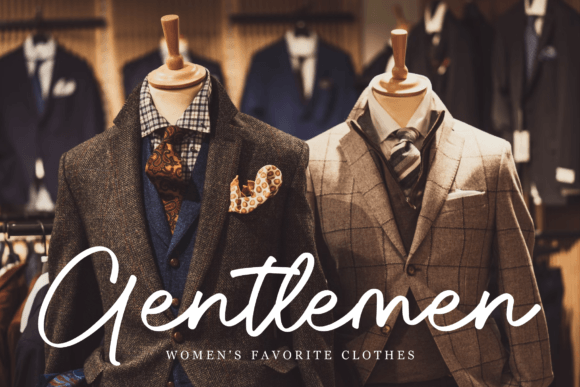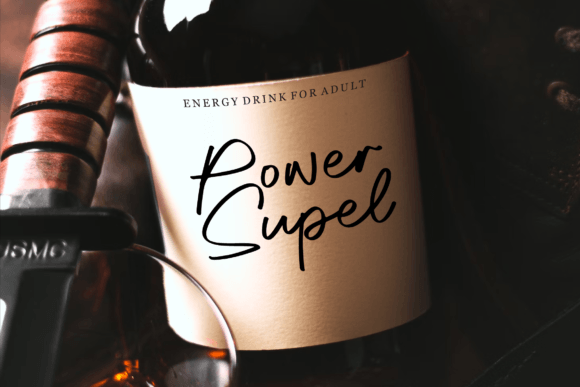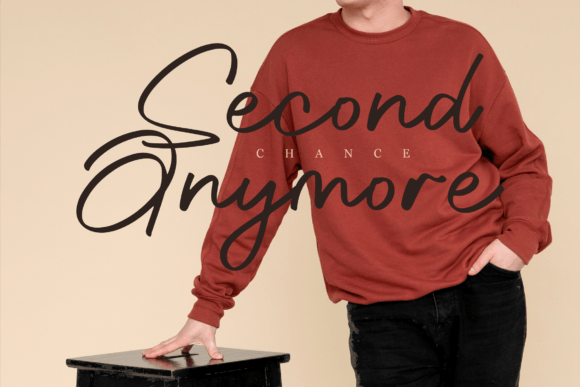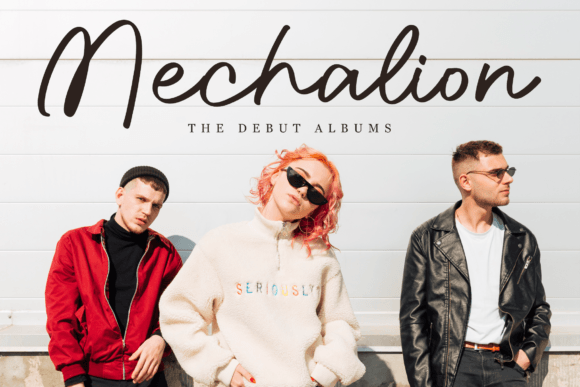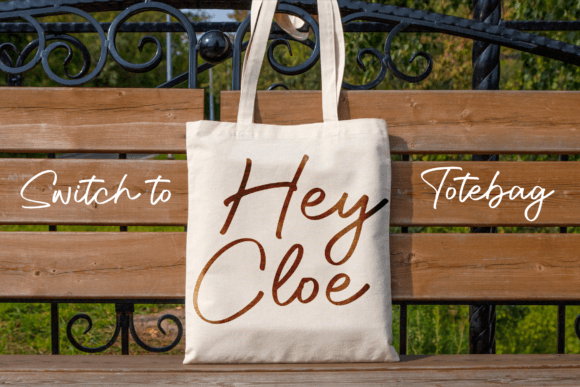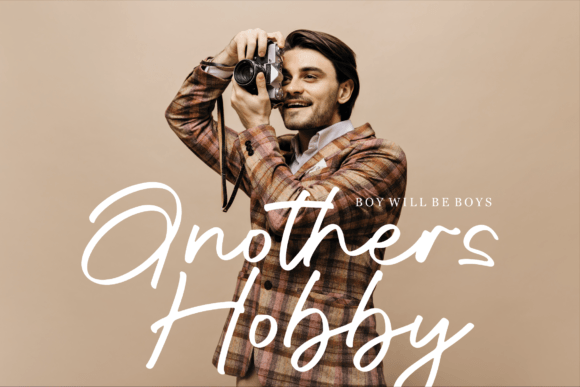
Discover the Elegant Charm of Arttelone Kaliber Font
Have you ever stumbled upon a font that makes you stop and take a closer look? For designers, that moment is like finding a hidden treasure. It’s the moment when a font’s unique character and style spark an idea, and suddenly, a project takes on a whole new level of creativity. For me, that moment came when I discovered the Arttelone Kaliber Font.
This sophisticated script font is a masterclass in elegance and refinement. With its delicate curves and swashes, it exudes a sense of femininity and sophistication that’s perfect for branding, wedding invitations, and editorial design. As a designer, you’ll appreciate the Arttelone Kaliber Font’s versatility and the way it can elevate any project with its refined charm.
Arttelone Kaliber Font Key Features
- Unique Characteristics: Arttelone Kaliber Font features a unique blend of modern and vintage elements, with a distinctive geometric flair and a touch of elegance, making it perfect for use in branding, advertising, and editorial design.
Review of Arttelone Kaliber Font
I recently had the chance to work with the Arttelone Kaliber Font, and I must say it’s a mixed bag. Let’s dive into the details.
- Unique aesthetic: The Arttelone Kaliber Font has a distinctive look that sets it apart from more common sans-serif fonts.
- High legibility: Despite its unique design, the font remains highly readable, even at smaller font sizes.
- Good for titles: The font’s bold and eye-catching nature makes it perfect for titles, headings, and other emphasis.
- Limited font sizes: The font starts to look a bit distorted when used at very small font sizes.
- Not ideal for body text: While the font is great for titles, it can be a bit overwhelming for larger blocks of text.
- No language support: Unfortunately, the font doesn’t include support for non-English languages.
Overall, the Arttelone Kaliber Font is a great choice for specific projects that require a unique and eye-catching font. However, its limitations make it less suitable for general use. With a bit of careful selection, this font can add a nice touch to your designs.
Arttelone Kaliber Font is suitable for:
– Headings and titles
– Creative and artistic designs
– Modern and minimalist designs
For the best results, use Arttelone Kaliber Font in conjunction with high-contrast colors and simple backgrounds. Experiment with different font sizes and styles to achieve the desired effect.